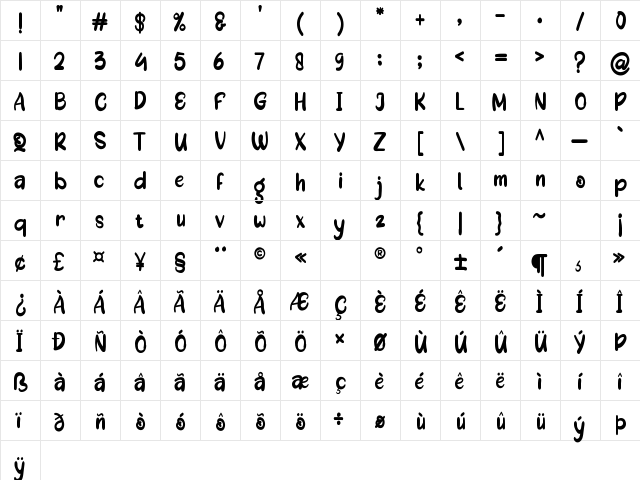
Arumi Regular
| Foundry | rozi |
| Designer | rozi |
Design Context for Arumi Typeface
Arumi is a composed and adaptable typeface that performs quietly and consistently across a wide range of design contexts.